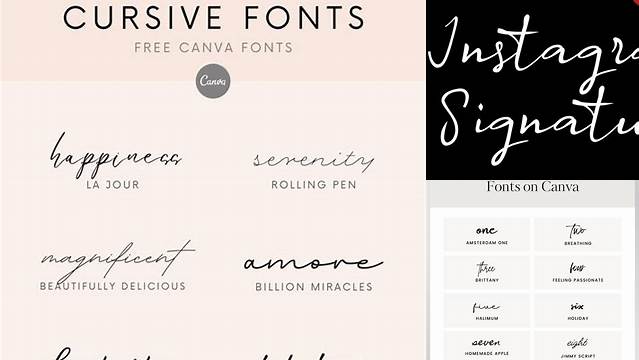
Cursive Fonts Generator For Instagram
Hey Instagram fanatics! Ever scrolled through your feed and been instantly captivated by a profile rocking the coolest, most unique fonts? You know, the ones that make you stop and think, "Wow, how'd they do that?" Well, the secret's out! We're diving deep into the world of beautiful cursive fonts generators for Instagram, showing you how to transform your captions, bios, and stories from basic to bold and beautiful. Buckle up, because we're about to unlock a whole new level of Insta-awesomeness!
Why Use Cursive Fonts on Instagram?
Let's be real, the standard Instagram font is a bit…blah. It's clean and functional, sure, but it lacks personality. Cursive fonts, on the other hand, scream individuality and style. They instantly grab attention and make your profile stand out from the crowd. Think of it like this: you're at a party, and everyone's wearing the same boring outfit. Then, bam! Someone walks in with a killer, unique look. That's the power of a cursive font on Instagram. It's a statement. It's a vibe. It's a way to instantly communicate your brand's personality, whether you're a small business owner, a budding influencer, or just someone who loves to share their life with the world. Using cursive fonts on Instagram can help you build a stronger brand image, attract more followers, and increase engagement.
Here are a few specific benefits:
- Increased Visibility: In a sea of standard fonts, a cursive font will catch the eye.
- Enhanced Brand Identity: It allows for expressing your brand's personality.
- Improved Engagement: Unique fonts make people stop and read your content.
- Creative Expression: You can use fonts to express emotions and tones.
- Professional Look: Cursive fonts add a touch of class and sophistication to your profile.
Using cursive fonts on Instagram is more than just a stylistic choice; it's a strategic move to elevate your online presence, create a more memorable experience, and capture the attention of your target audience. Whether you are looking to appear more professional, creative, or just want to stand out, choosing the right cursive font can make all the difference.
Top Cursive Fonts Generators for Instagram
Alright, let's get down to the good stuff: the generators! These tools are super easy to use, allowing you to transform your text into a variety of stylish cursive fonts. Here are some of the best: These tools provide a user-friendly interface, where you input your text and the generator automatically converts it into different cursive font styles. These platforms offer a great variety of styles, ranging from elegant and sophisticated to playful and modern, allowing you to find the perfect cursive font that matches your brand's or personal style.
LingoJam: LingoJam is a fantastic option with a clean and simple interface. Just type in your text, and it instantly generates a bunch of different font styles, including some gorgeous cursive options. It's super easy to copy and paste the font you like into your Instagram bio or caption. LingoJam is known for its user-friendly design. It offers a wide selection of cursive fonts, catering to various aesthetic preferences. It is also mobile-friendly, allowing you to create and copy stylish text directly from your smartphone or tablet. LingoJam has become popular among users looking to enhance their Instagram profiles, allowing them to create unique content that attracts attention.
Cool Fonts: Cool Fonts is another popular choice, offering a vast library of font styles. They have a specific section dedicated to cursive fonts, making it easy to find the perfect style for your needs. Cool Fonts has a user-friendly design, and it provides an extensive collection of cursive fonts, catering to diverse aesthetic preferences. It is also compatible with multiple platforms, including Instagram, and allows users to copy and paste their generated text directly into their profiles, captions, and stories. With its easy-to-use features and vast library of fonts, Cool Fonts is a great choice for users looking to add a unique and stylish touch to their Instagram content.
Fonts for Instagram: This generator is specifically designed with Instagram in mind. It offers a variety of cursive and other unique fonts that are compatible with Instagram's platform. It's a go-to resource for users who want to easily generate and apply stylish fonts to their Instagram profiles. Fonts for Instagram provides an extensive collection of cursive fonts designed specifically for Instagram, enabling users to easily generate and copy stylish text for their profiles, captions, and stories. This platform is dedicated to enhancing the visual appeal of Instagram content, with a focus on compatibility and user-friendliness, making it a top choice for users looking to create unique and eye-catching posts.
Instagram Fonts: Instagram Fonts is designed to simplify the process of creating unique and stylish Instagram content. This tool allows users to generate text in a variety of fonts, including elegant cursive styles, making it easy to enhance their profiles, captions, and stories. Instagram Fonts provides a user-friendly interface, enabling quick text generation and copy-pasting functionality. This platform's focus on ease of use and compatibility with Instagram makes it a great choice for individuals and businesses seeking to add a unique flair to their online presence. The user-friendly design of Instagram Fonts simplifies the process of creating unique and stylish content, allowing users to transform their text into a range of appealing fonts, including many cursive options. It offers a simple interface where you can type your text and instantly see it transformed into different font styles. The tool is particularly useful for adding a personal touch to your Instagram content, making your profile more visually appealing and memorable. Instagram Fonts' dedication to ease of use and Instagram compatibility makes it a great pick for those wanting to give their online presence a creative makeover.
Remember, the key is to experiment! Try out a few different generators and see which cursive fonts best fit your personal style or brand aesthetic.
How to Use Cursive Fonts on Instagram
Okay, so you've found a generator you love and you're ready to get started. Here's the lowdown on how to use your new cursive fonts on Instagram, so you can make your Insta profiles pop!
- Choose Your Generator: Select one of the generators listed above, or find one that catches your eye. Many are accessible via web browsers on both your desktop and mobile devices, making them easily accessible from anywhere.
- Type Your Text: Enter the text you want to use in the generator's input field. This could be your Instagram bio, a caption for a post, or even a stylish text for your stories. You can experiment with various phrases, quotes, or calls-to-action to see which ones look best with your chosen cursive font. The tool will then convert your text into a range of different cursive styles for you to explore. Try out different words and phrases to see which ones look the most visually appealing and best fit your message.
- Copy and Paste: Once you've found a font you like, simply copy the generated text. Then, head over to your Instagram profile and paste it wherever you want to use it: your bio, your captions, or even your stories. Ensure the font is visible and clear on various device screens.
- Pro Tip: Keep it concise! Cursive fonts can sometimes be harder to read, so shorter is often better. Also, be mindful of how the font looks with your images and videos. Make sure it complements your content, rather than competing with it. Using cursive fonts on Instagram is about more than just making your profile visually appealing; it's about making it more user-friendly and easier to read. By adhering to these tips, you can effectively utilize cursive fonts to not only enhance your profile's visual appeal but also strengthen your brand's identity and boost engagement.
Tips for Using Cursive Fonts Effectively
Want to make the most of your new cursive fonts? Here are some pro tips to help you out:
- Readability is Key: While cursive fonts are stylish, they can sometimes be tricky to read. Choose fonts that are clear and easy to understand, especially in your bio. Avoid overly elaborate or intricate fonts that might be hard for your followers to decipher. Ensure the chosen font complements your overall profile aesthetic.
- Mix and Match: Don't be afraid to combine cursive fonts with standard fonts! Using a cursive font for your username or a short quote in your bio can make a big impact, while keeping your captions in a more readable font. This allows you to blend the aesthetic appeal of cursive fonts with the practicality of standard fonts, ensuring your profile is both stylish and accessible.
- Test on Different Devices: Instagram displays differently on different devices. Make sure your chosen font looks good on both mobile and desktop. Ensure your font is visually appealing and readable across multiple platforms, including phones and tablets. This helps to guarantee that your content looks good for everyone, irrespective of their device. Testing on multiple devices ensures consistent presentation and user experience across all users.
- Consider Your Brand: Choose fonts that align with your brand's personality and values. A playful, whimsical font might be perfect for a children's brand, while a more elegant font would suit a luxury brand. Select cursive fonts that resonate with your brand’s values and personality. A consistent brand aesthetic helps in creating a cohesive and memorable online presence.
- Don't Overdo It: Too much cursive can be overwhelming. Use it strategically to highlight important information or add a touch of flair. When used sparingly, cursive fonts can draw attention to key messages or make your posts stand out. Using cursive fonts judiciously prevents overwhelming your audience and maximizes the impact of your content.
- Keep it Updated: Instagram is always evolving. Regularly update your font choices to keep your profile looking fresh and engaging. This ensures your profile stays modern and interesting. Keeping up with the latest trends and designs can help you stay relevant and attract more followers.
By keeping these tips in mind, you can use cursive fonts to elevate your Instagram game, create a unique brand image, and capture your audience's attention. With consistent application, the creative use of cursive fonts can improve your engagement rates and transform your profile into a captivating destination.
Sometimes, things don't go exactly as planned. Here's how to troubleshoot common issues when using cursive fonts on Instagram:
- Font Not Displaying Correctly: If the font doesn't appear as expected, try copying and pasting it again. Sometimes, Instagram glitches can mess with the formatting. Check for any special characters that might not be supported. These issues can often be fixed by clearing the cache or switching to a different browser. Ensure your device and the Instagram app are up to date.
- Font Not Appearing at All: This is a common problem. Instagram doesn't support all fonts, so your chosen font might not work. Try a different generator or font style. Some font styles might not be compatible with the platform. You can also check if your text includes special characters or symbols, as these can sometimes cause display issues.
- Font Looks Jumbled or Unreadable: This is usually a readability issue. Choose a clearer, simpler cursive font. Avoid overly ornate or complex styles that are difficult to decipher, especially in your bio where clarity is essential. Consider reducing the font size or spacing out the letters if readability issues persist. Focus on selecting a font that is legible to ensure an enjoyable experience for your audience.
- Character Limits: Instagram has character limits for bios and captions. Make sure your text fits within these limits. If you're running out of space, try shortening your text or using a more concise font. You might need to trim your content, prioritize your message, or explore alternative ways to convey your information.
If you're still having trouble, try searching online forums or contacting Instagram's support team. They may provide additional insights or solutions. By addressing these potential problems, you can optimize your Instagram profile for better readability and user engagement. Ensuring your fonts display correctly and are easy to read contributes to a positive user experience and boosts engagement.
Conclusion: Unleash Your Creativity!
There you have it, folks! Everything you need to know to master beautiful cursive fonts on Instagram. Go out there, experiment with different generators and styles, and unleash your creativity! Remember, your Instagram profile is your digital storefront, so make it a reflection of your unique personality and style. Embrace the power of cursive fonts, and watch your follower count and engagement soar. Get creative, have fun, and transform your Insta-game today! And hey, while you're at it, why not share your favorite cursive font finds with us in the comments below? We'd love to see what you come up with! Get ready to turn heads and make your Instagram profile truly your own.